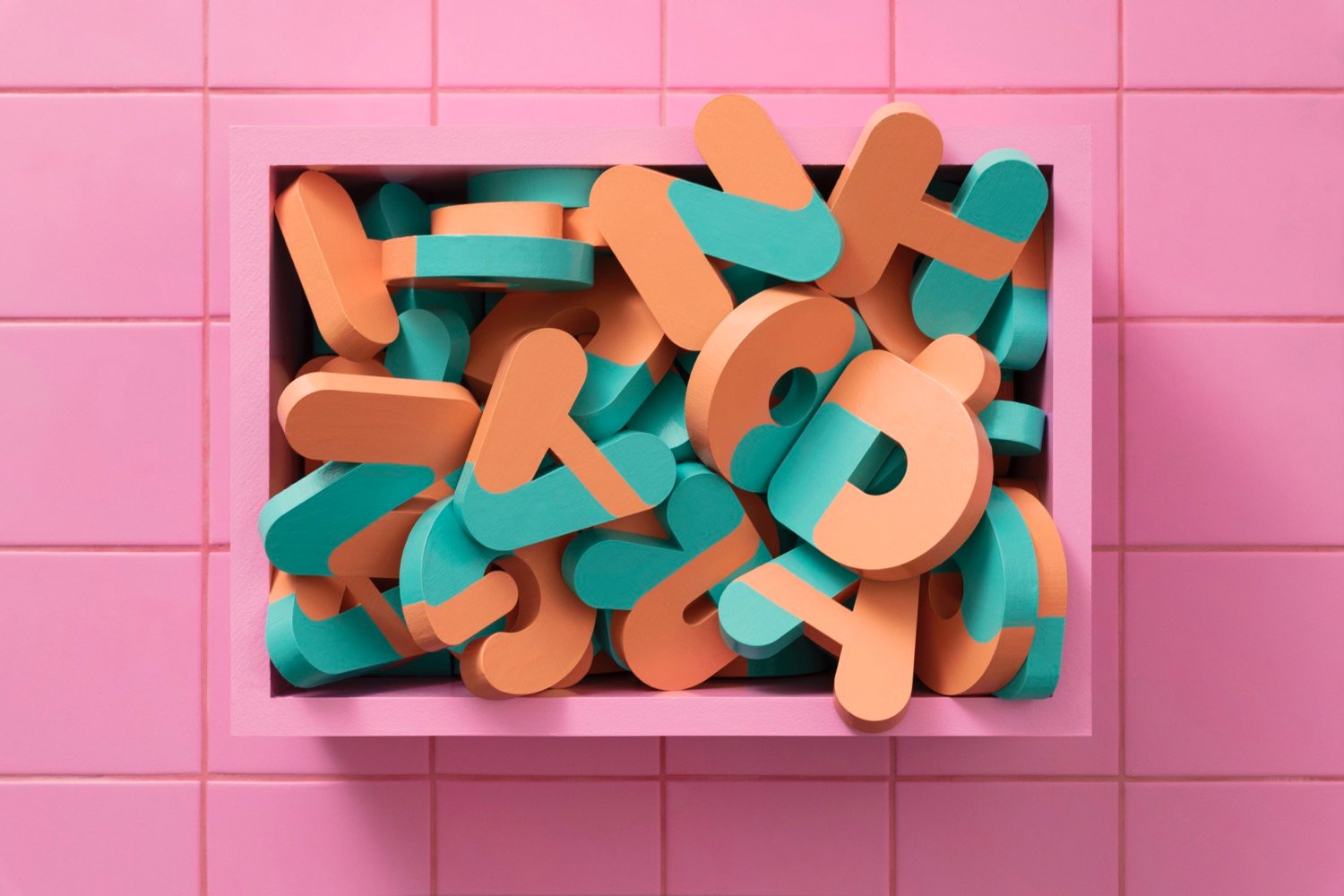
Berlin-based type foundry Fontwerk is introducing the Hamster typeface by Joe Stitzlein. Hamster is a colorful playground for designers. Inspired by the pe...